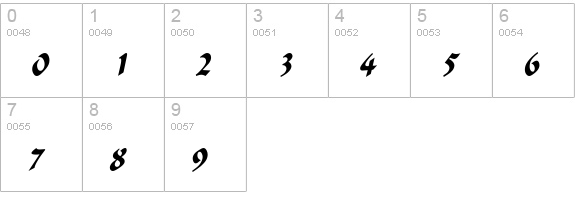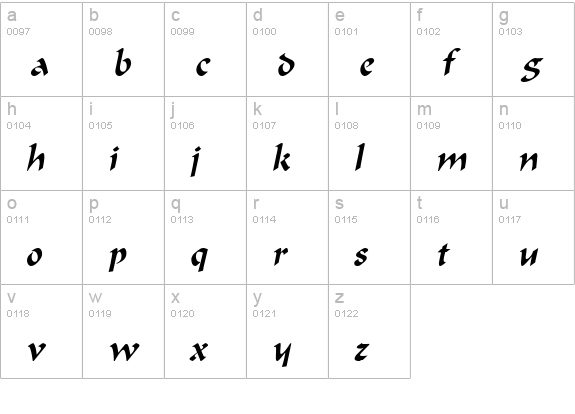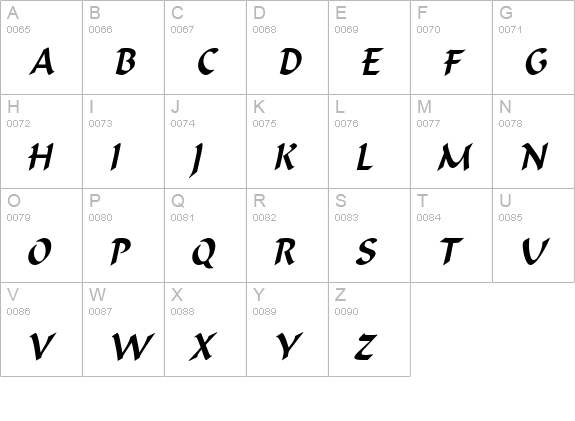
Flat Brush Condensed Italic Font Details
Flat Brush Condensed Italic is a distinctive, condensed-width, italic variant in the Flat typeface family \xE2\x80\x94 well suited to design and typography projects.
Introducing Flat Brush Condensed Italic font - a sleek and stylish typeface designed to add a touch of elegance to your projects. This unique font features a modern condensed style with a subtle italic twist, perfect for creating eye-catching designs that command attention. The smooth brush strokes give this font a sophisticated and contemporary look, making it ideal for a wide range of applications. What's even better is that Flat Brush Condensed Italic font is available for free download at FontsMarket.com. You can easily enhance your designs with this versatile and striking typeface without any cost. Whether you're working on branding, advertising, packaging, or any other creative project, Flat Brush Condensed Italic font is sure to elevate your work and make a lasting impression. Download it now and unleash your creativity with this fabulous font!